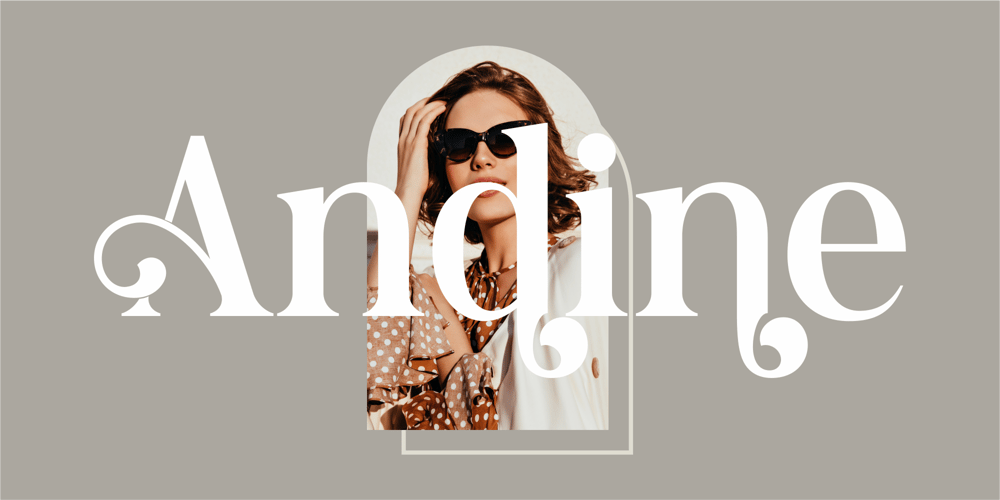
Andine Font Family was designed by Heru Utama Putra and published by Letterena Studios. Andine contains 2 styles and family package options. Hi, Everyone! Want a font to make your branding bold? Are you trying to make a stylish statement with your projects? We’ve got what you want.Introducing Andine – A Serif FontA fabulous, elegant, and modern serif font that’ll engage your audience and make your branding stand out. This stylish font can be used for a host of different content needs and projects. Perfect for social media branding projects, fashion designs, printed quotes, or even as a stylish text overlay to any background image and many more!Andine includes Multilingual option to make your branding reach a global audience.Includes:Andine (OTF)Features: Standard Ligatures Stylistic Sets Multilingual Support PUA Encoded Numerals and Punctuation